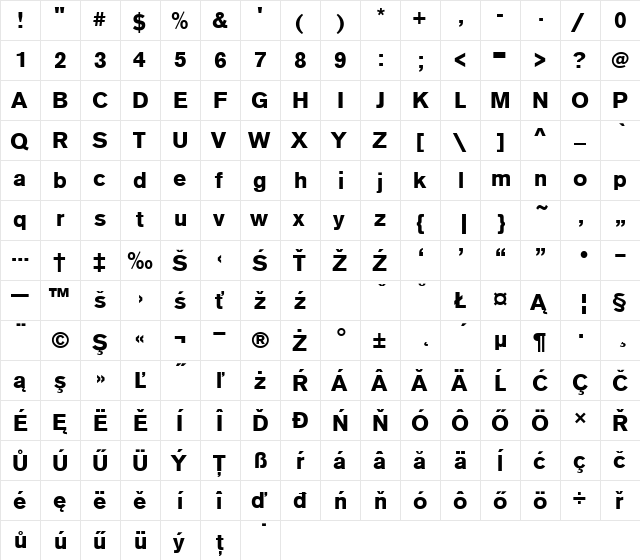
AcciuTEE Bold Font Preview
AcciuTEE Bold
AcciuTEE Bold Font Details
Design Context for AcciuTEE Typeface
AcciuTEE offers clean, dependable letterforms without strong stylistic allegiance, making it a practical choice for designers who need flexibility. The heavy weight commands attention and anchors typographic hierarchies.
Pro Tip: Pair AcciuTEE with a font of contrasting weight or personality to build a more expressive typographic hierarchy.